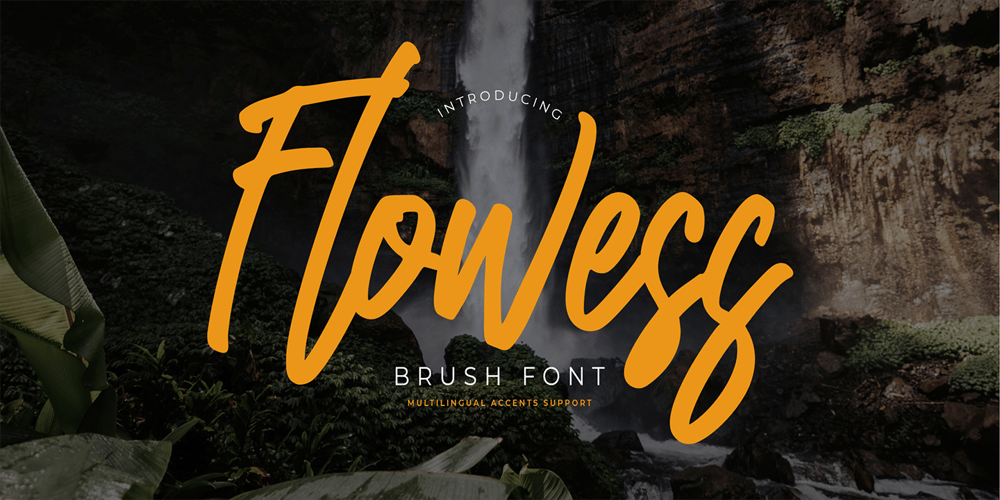
Flowess Font Family was designed by Abdul Malik Wisnu, Anang Fibriyanto and published by Gassstype. Flowess contains 1 styles and family package options. Hello Everyone, introduce our new product Font Flowess This Is Brush Font.This is a Textured Natural Style and classy style with a clear style and dramatic movement.This font Flowess is great for your next creative project such as logos, printed quotes, invitations, cards, product packaging, headers, Logotype, Letterhead, Poster.You can activate 23 Ligatures and 34 Alternate glyphs OpenType panel.